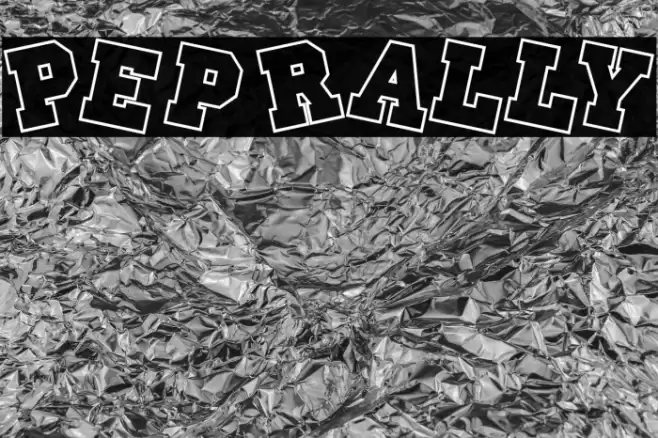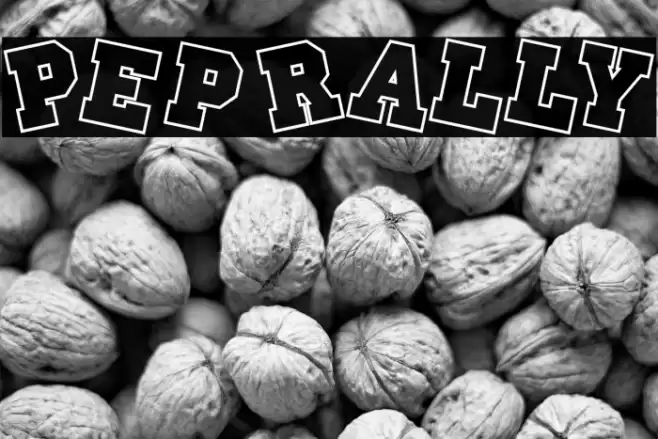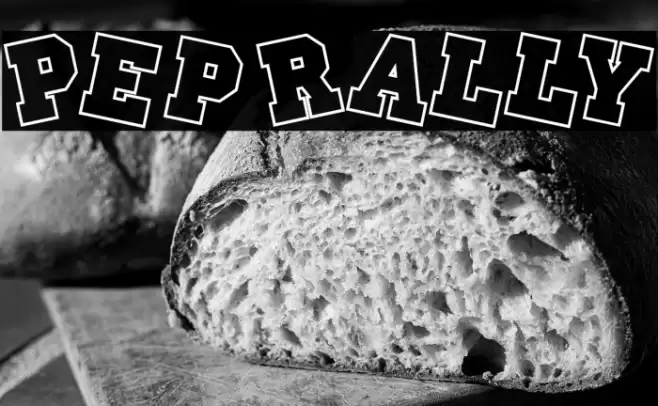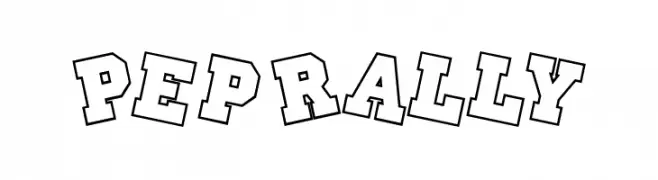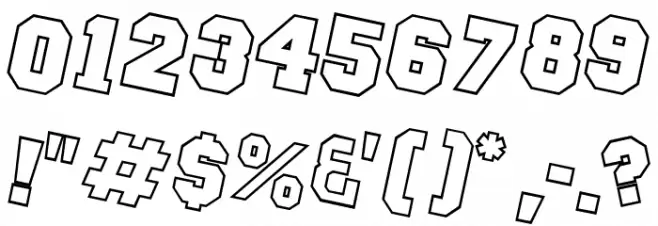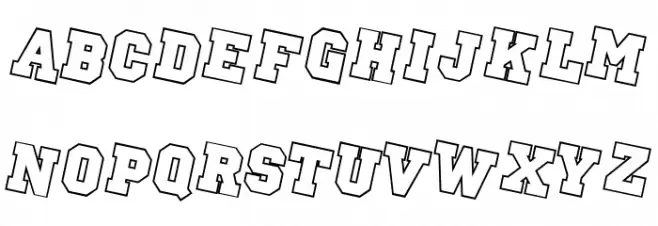
Pep Rally Font
Pep Rally Description
This font features bold, blocky characters with a distinct outline style, giving it a strong and impactful appearance. The letters are uppercase and have a uniform thickness, which adds to their boldness. The design is reminiscent of sports or collegiate themes, making it ideal for creating a sense of energy and excitement. The numbers and special characters maintain the same bold outline, ensuring consistency across all glyphs. The overall look is both playful and assertive, suitable for projects that require a standout, attention-grabbing font.
Bold, outlined font with a sporty, collegiate style from Uncategorized fonts.
- Proposed Projects: Ideal for sports team branding, event posters, school spirit merchandise, and any project needing a bold, energetic typeface.
- Overall Style: Sporty, Collegiate, Energetic